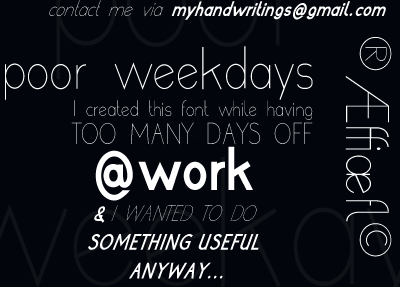
POOR WEEKDAYS are a clean ,simple design I was workin on recently. Thanks to all who gave me positive feedbacks and encouraging words, I decided to make a whole family out of this style. As kerning work is not my favorite part of font design, and I find it so difficult, It may need some afterworks. Also missing some language extention or character yet, in case you need more glyphs or finding kerning issues, or just dropping me feedback, please contact me at: myhandwritings@gmail.com That would help me in my design work, and would be greatly appreciated ,also donations are respected! Free for personal use, commercial use requires donation. Thank you and I hope you like this font! Roland http://www.rolandhuse.com http://www.myhandwritings.com Enjoy \m/ |